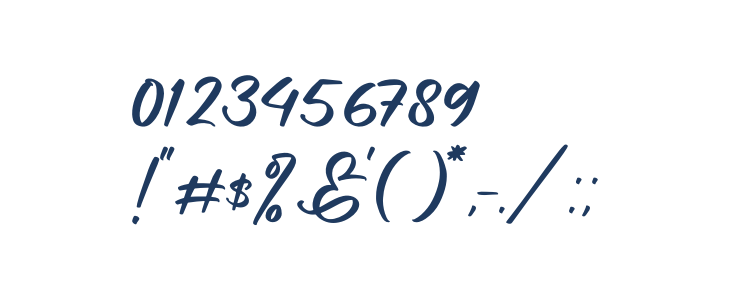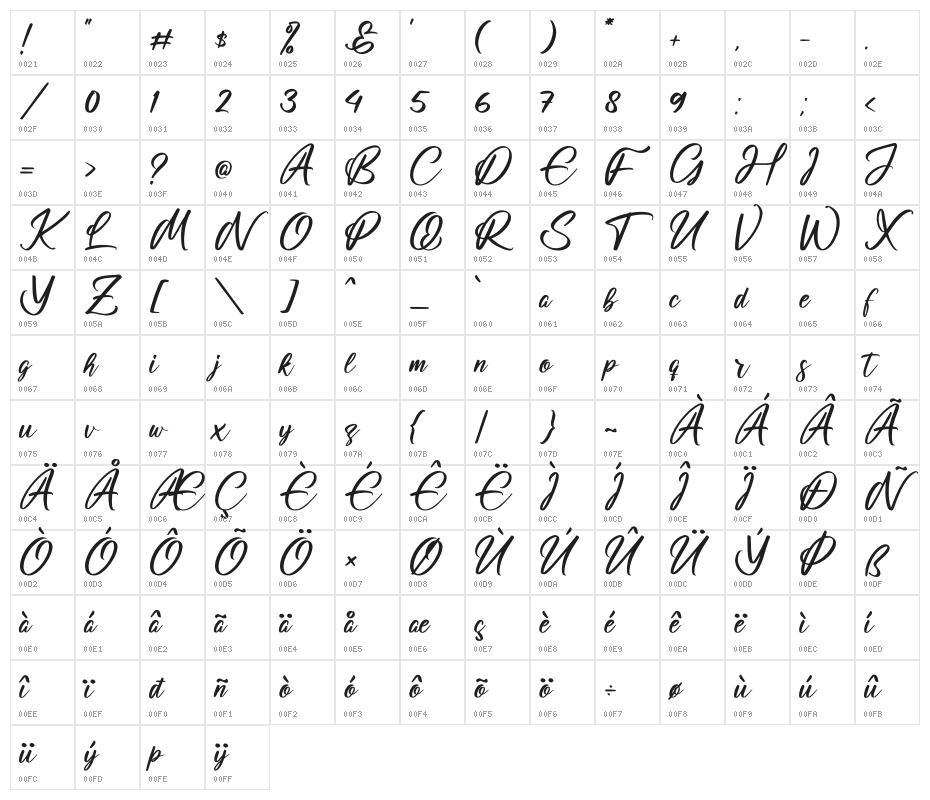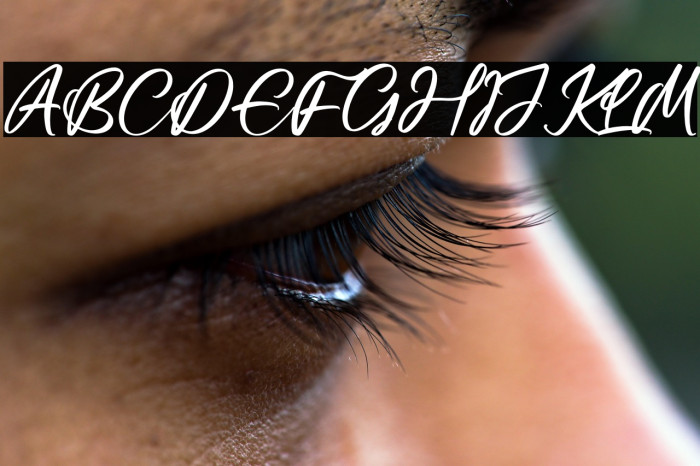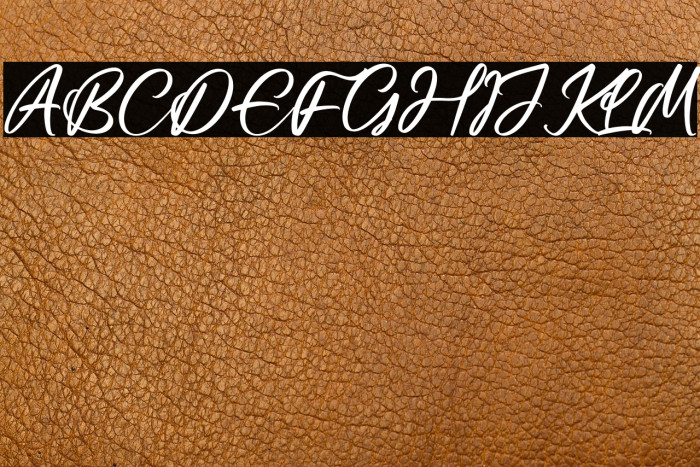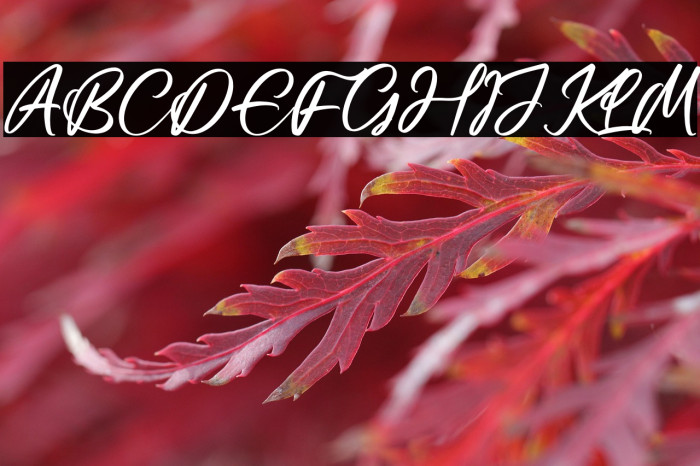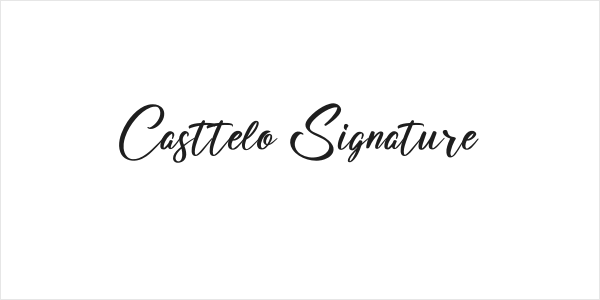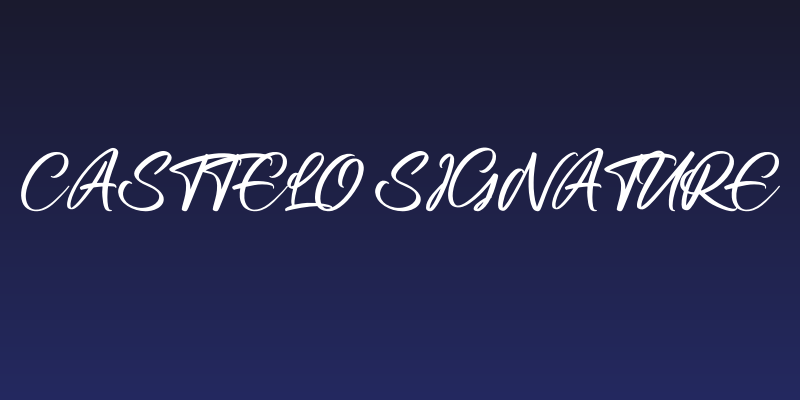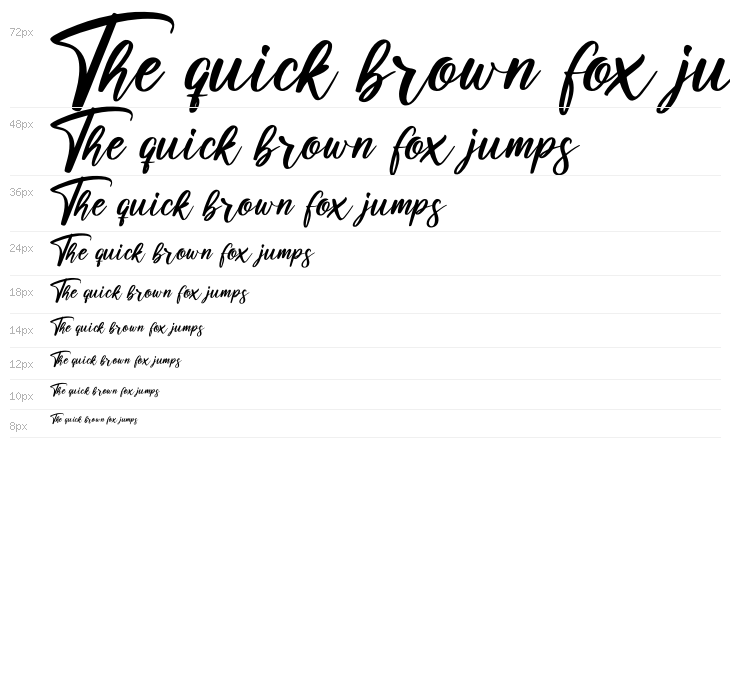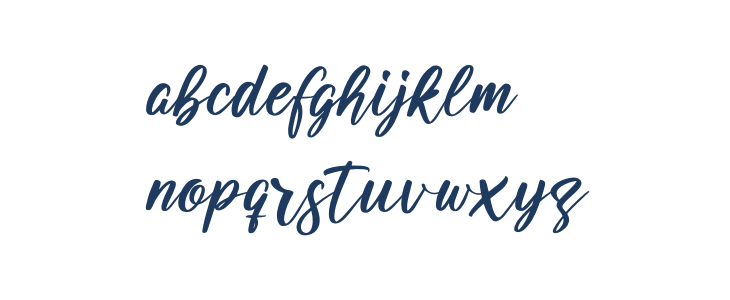
Casttelo Signature Font
Casttelo Signature Description
This font exudes elegance and sophistication with its flowing, cursive style. The characters are interconnected, creating a seamless and fluid appearance. Each letter is crafted with a sense of movement, giving it a dynamic and lively feel. The uppercase letters are bold and prominent, while the lowercase letters maintain a graceful and delicate form. The numerals and special characters are consistent with the overall script style, ensuring a cohesive look. This font is perfect for projects that require a touch of class and refinement.
| Overall Style | Elegant |
| Use Case | Logos, Invitations, Branding |
| Proposed Projects | Ideal for wedding invitations, branding, logos, and elegant stationery. |